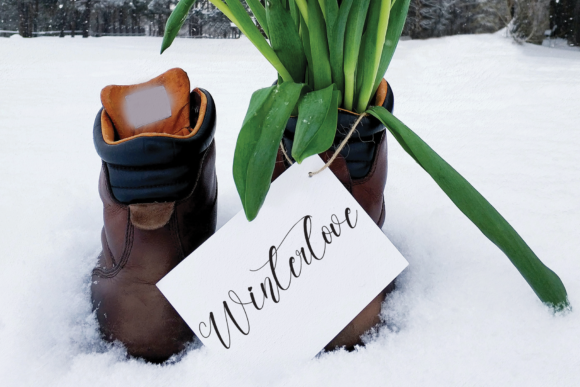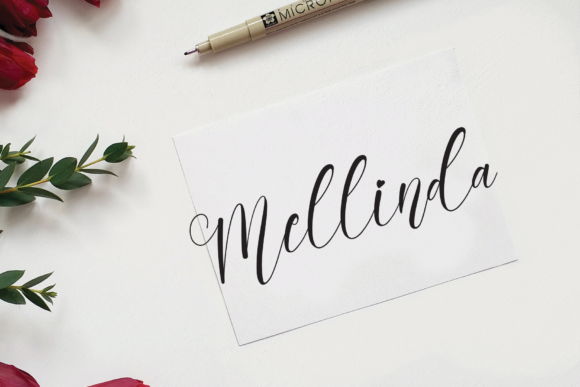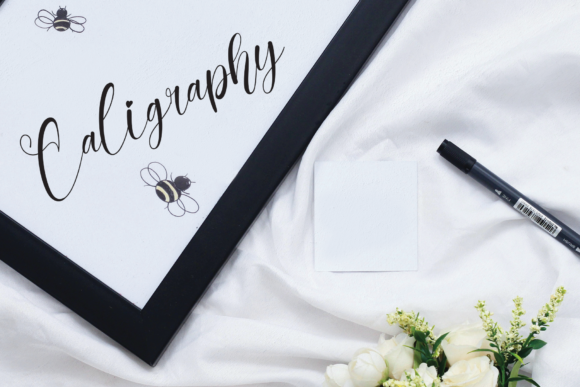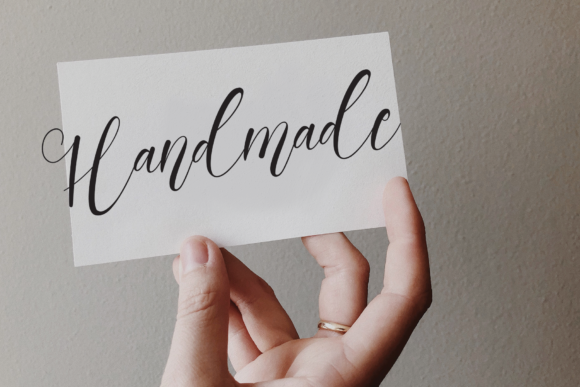
Find Your Perfect Script: Introducing the Bananamilk Font
As designers, we’ve all been there – staring at a blank canvas, searching for the perfect font to bring our vision to life. It’s that moment when everything clicks, and the words start flowing, and you know exactly what you need to create something truly special. For those moments, we’re excited to introduce you to the Bananamilk Font, a beautiful script font that’s sure to add a touch of elegance and whimsy to any design.
With its dainty, flowing lines and joyful feel, the Bananamilk Font is perfect for writing wedding invitations, cards, or any other design that needs a personalized touch. Whether you’re a seasoned pro or just starting out, this versatile font is a valuable addition to any designer’s toolkit, offering endless possibilities for creativity and self-expression.
- Unique Characteristics: Bananamilk Font features a playful, handwritten style with a mix of cursive and script elements, making it suitable for creative and informal designs.
Bananamilk Font Review
Overall, I was excited to dive into the Bananamilk Font and see what it has to offer. As a designer, I appreciate unique and creative typography, and Bananamilk does not disappoint ✨. The font has a playful, energetic vibe that would be perfect for projects that require a fun and youthful feel.
Some of the features that I particularly enjoy about Bananamilk include:
- Customization options**: Bananamilk offers a range of customization options, allowing you to adjust the font’s color, size, and style to fit your project’s needs.
- Extensive character set**: The font includes a wide range of characters, including Latin, Cyrillic, and Greek alphabets, as well as punctuation marks and symbols.
However, there are a few limitations to consider ⚠️:
- Lack of italic and bold variations**: While the font’s regular style is engaging, I wish it had more weight options to provide contrast and emphasis.
Overall, I would recommend Bananamilk Font to designers looking for a fun and creative typography solution. While it may not be the most versatile font, its unique charm and customization options make it a great choice for projects that require a playful touch ✨.
The Bananamilk Font is ideal for creative projects, such as:
1. Social media graphics
2. Marketing materials (e.g. flyers, brochures)
3. Branding and logos